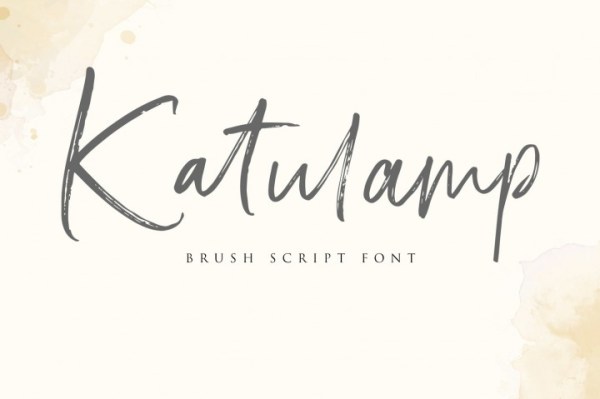
Freebie Wednesday: Katulamp Font
Katulamp is a free brush script font (by Resume Land) and freebie of the week at The Hungry Jpeg. Don’t wait too long, the offer expires in 6 days!